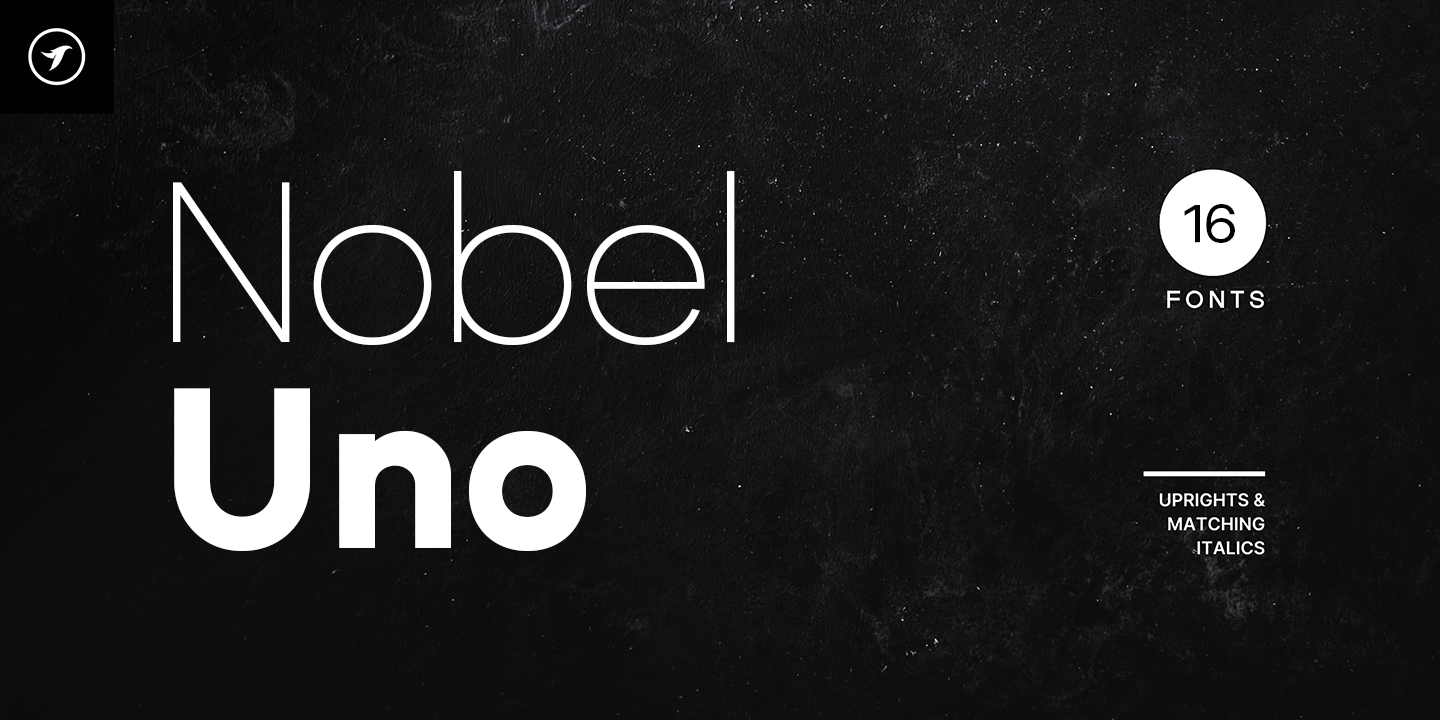
Nobel Uno Font excels in prestigious applications including award ceremonies, academic institutions, research foundations, scientific publications, innovation conferences, excellence programs, achievement recognitions, and intellectual organizations that require distinguished typography with scholarly authority and Nobel Prize-level sophistication.
What makes Nobel Uno Font exciting is its exceptional ability to convey intellectual excellence and scientific achievement through precisely engineered letterforms that embody the highest standards of academic distinction. This prestigious typeface features refined characteristics and scholarly proportions that communicate breakthrough thinking and revolutionary discoveries, making it perfect for institutions celebrating human advancement.
The Nobel Uno Font family includes light, regular, medium, and bold weights, complemented by small caps and scientific notation support for academic applications. Each style maintains the font's characteristic intellectual dignity while providing designers with comprehensive tools for creating authoritative layouts and distinguished scholarly communications that honor scientific excellence.
Academic professionals consistently select Nobel Uno Font Free Download for projects requiring ultimate intellectual credibility and scientific prestige. This versatile typeface seamlessly communicates groundbreaking research while maintaining exceptional readability, ensuring complex scientific content achieves the recognition and respect it deserves in competitive academic environments.
The font's scholarly precision and prestigious character make it particularly suitable for education and research sectors. Nobel Uno Font delivers exceptional intellectual impact while ensuring optimal comprehension of complex concepts, offering designers a distinguished solution for creating memorable brand identities that communicate innovation, excellence, and Nobel-caliber achievement across prestigious academic and scientific marketing applications.